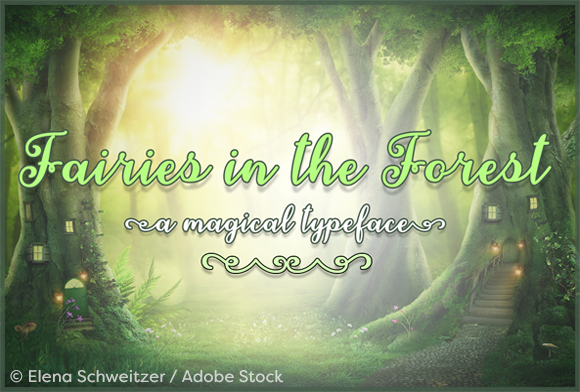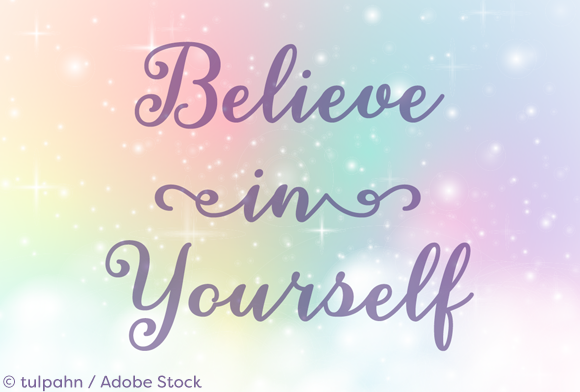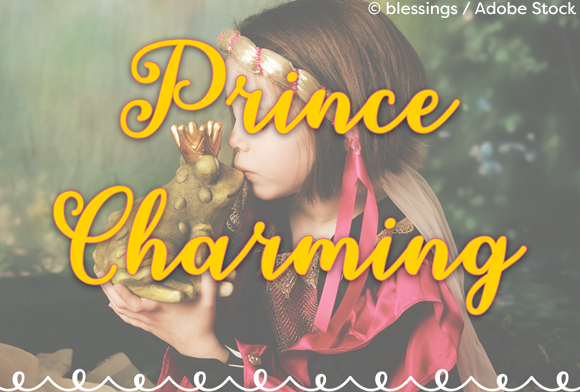
Fairies in the Forest Font
About Fairies in the Forest Font
Fairies in the Forest is a beautiful, bouncy typeface that will add magical charm to your projects! Perfect for wedding invitations, logos, product labels and so much more!